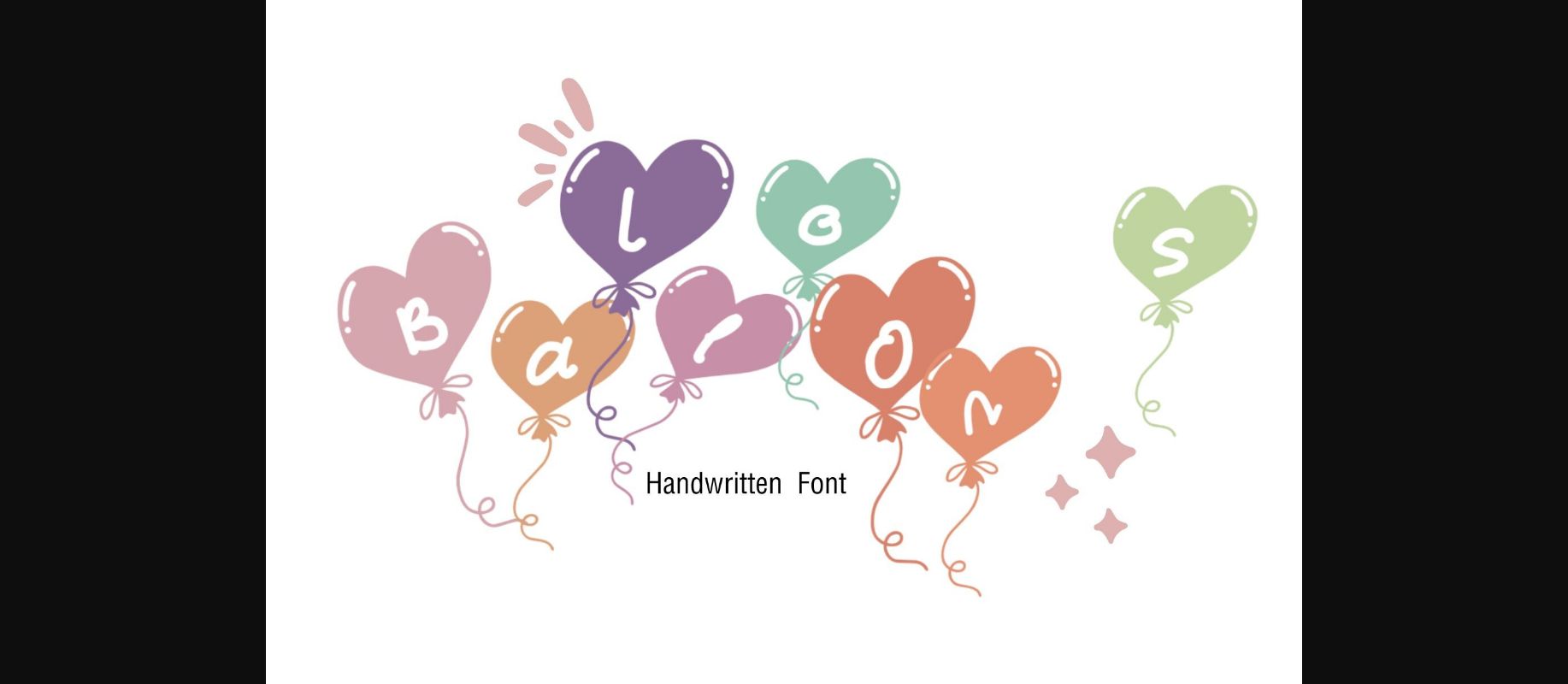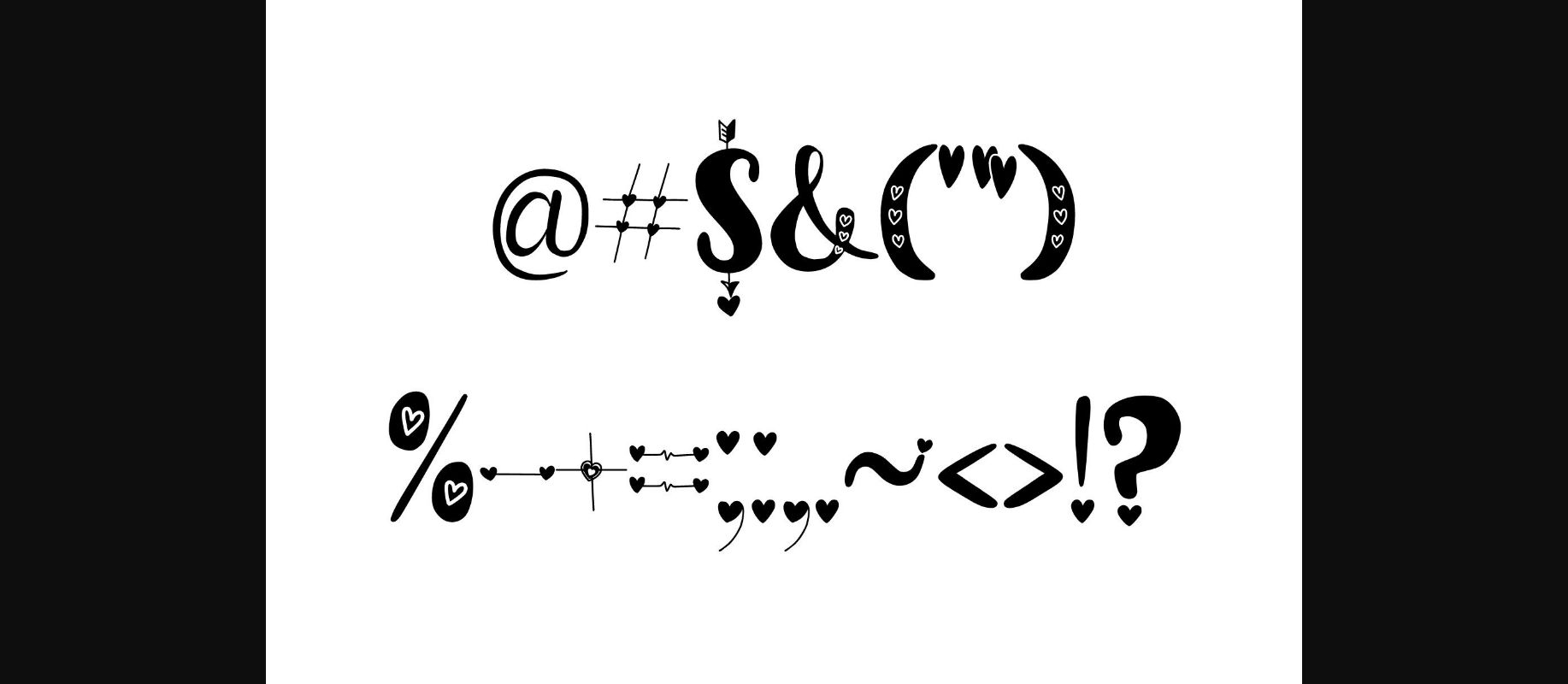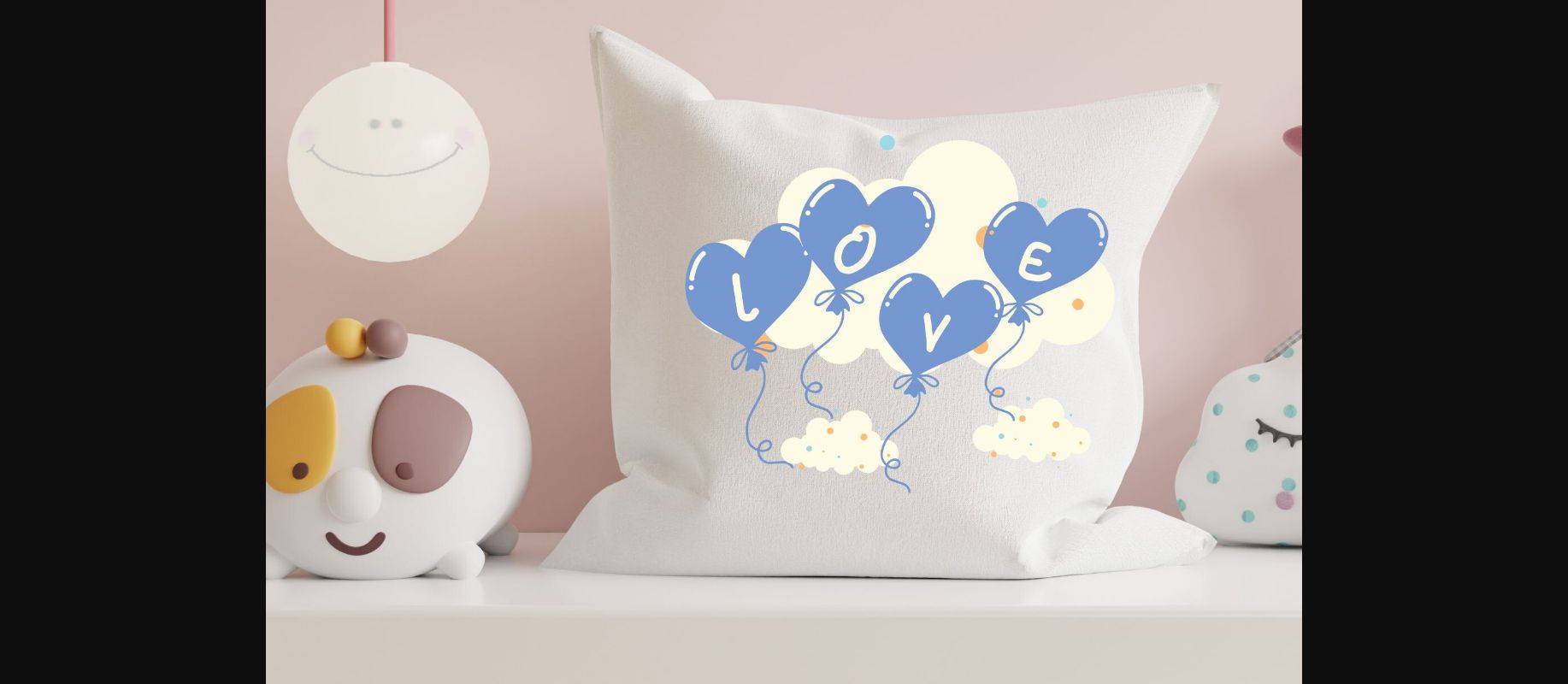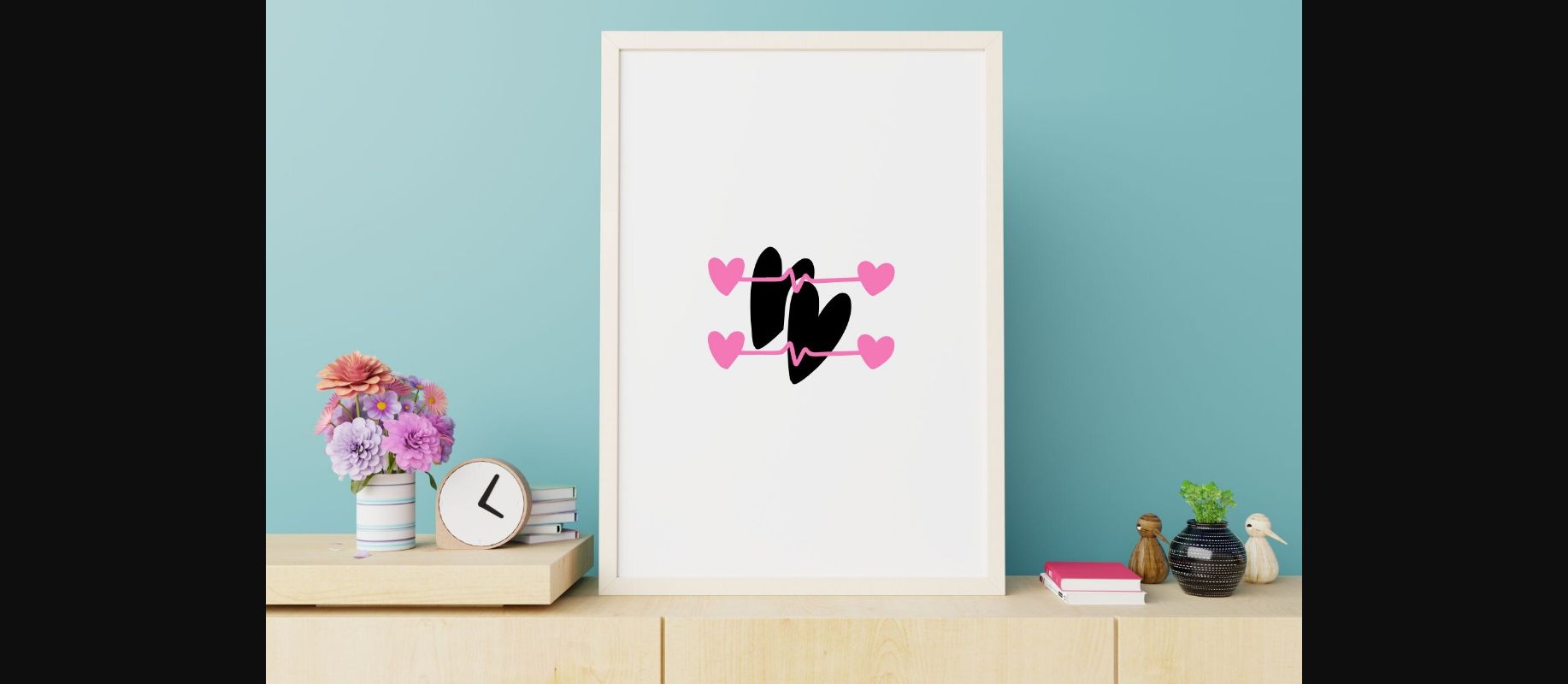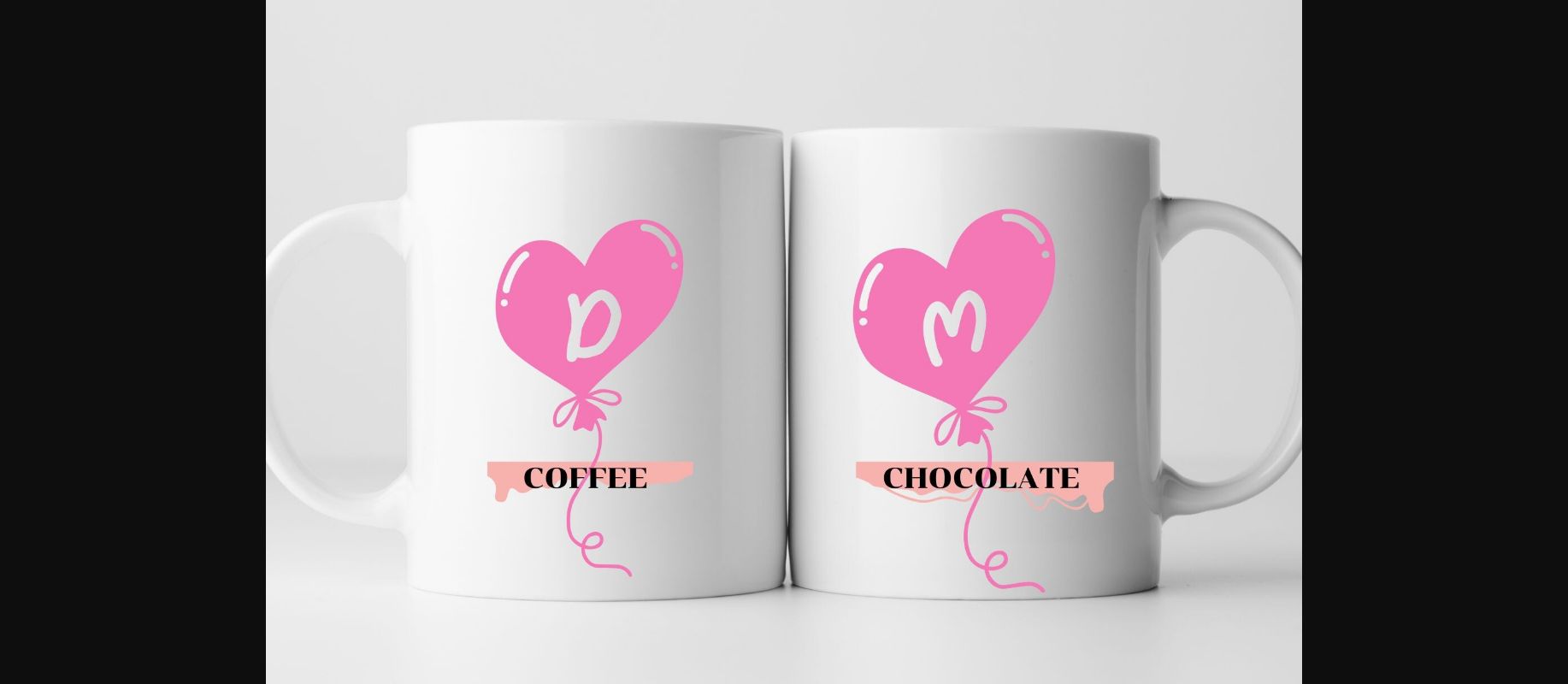
About Balloons Font
Balloons is a cute decorative font that lifts designs to playful heights. Each letter bursts with joy, resembling vibrant balloons ready for celebration. Ideal for projects requiring a festive and whimsical touch, Balloons adds a delightful and decorative flair, making your designs float with charm and merriment.